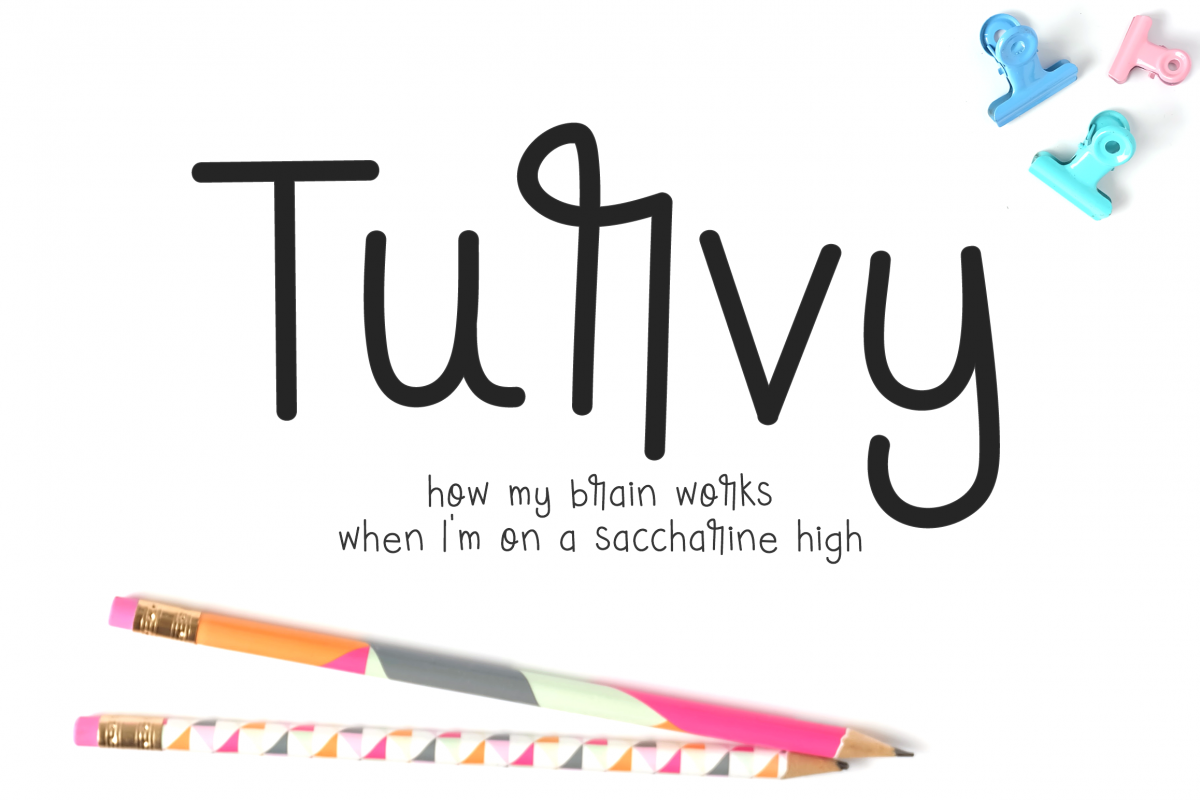
Turvy - A Unique Font to Replace Comic Sans
MIX TURVY, how my brain works when I'm on a saccharine high, is a typeface perfect for handmade and DIY themed projects.
This font is on Creative Market's Perfectly Unique Fonts to Replace Comic Sans list (https://crmrkt.com/2EpVA)!